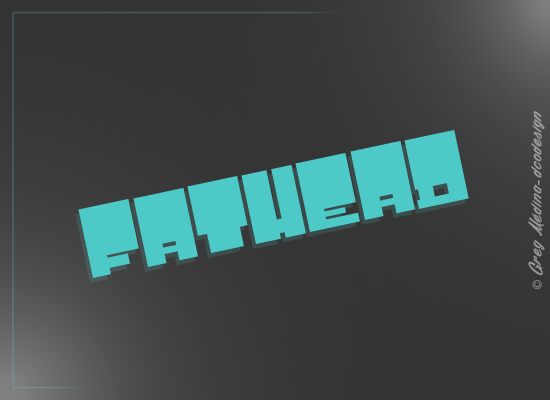
Fathead is a bold, techno-style display font created by Gregory Medina and ©dcodesign 2022. It's perfect for creative projects like logos, posters, and headlines that need to stand out.